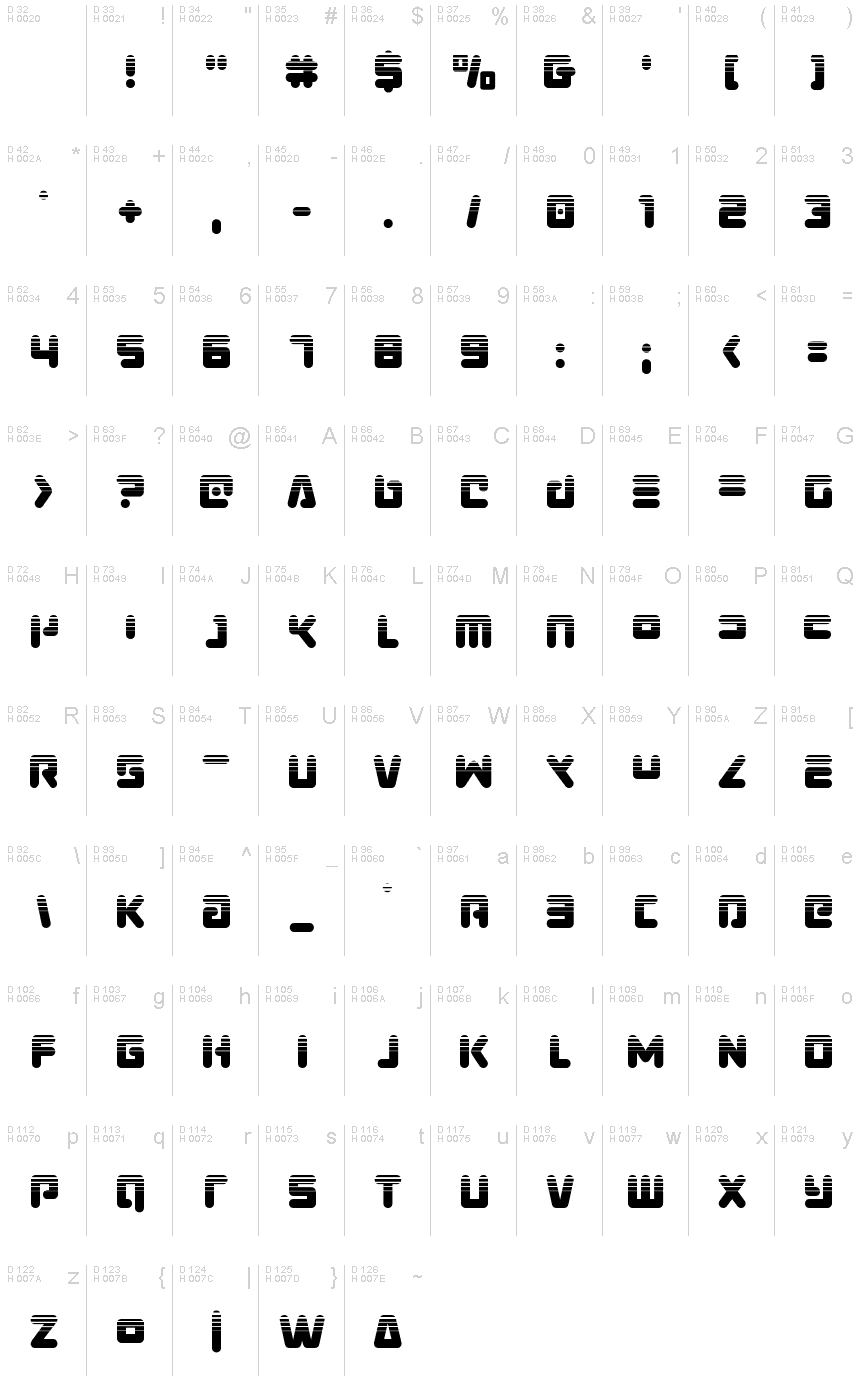
Unbound Gamer Halftone
Unleash the power of your gaming projects with Unbound Gamer Halftone, the bold and techno-inspired display font from renowned designer Daniel Zadorozny. With its striking halftone effect, this font will add a dynamic and futuristic feel to your game titles, logos, and branding materials. Its wide range of weights also makes it perfect for in-game text and UI design. Whether you're creating a fast-paced action game or an immersive RPG adventure, Unbound Gamer Halftone will help you create a truly unforgettable gaming experience.